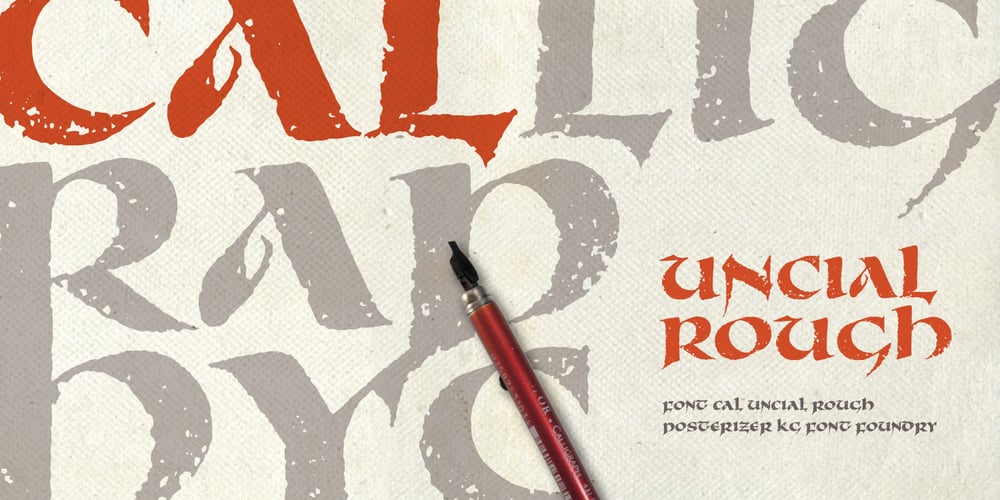
Cal Uncial Rough
Cal Uncial Rough font
Cal Uncial Rough Font Family was designed by Lazar Dimitrijević and published by Posterizer KG. Cal Uncial Rough contains 1 styles and family package options. Cal Uncial Rough is a calligraphic font based on sketches written with cane calligraphy pen and ink on coarse-textured paper. Because of the fact that the Uncial don’t have lowercase letters, there are small capitals instead of the lowercase. As the Latin version of the Uncial was created from the Greek Uncial script (translating the Bible from Greek into Latin), in addition to the standard Latin graphemes, the font contains the Greek alphabet (and also the Cyrillic letters (Ustav), derived from the Greek Uncial too). Regardless of the stylistic connection, there is a difference between the morphology of related Greek, Latin and Cyrillic letters. Most of the graphemes are based on traditional roman and insular uncial calligraphy. Cal Uncial Rough is suitable for the preparation of calligraphic sketches as well as an application in typography that should bring us closer to historical topics (European literature, quotes, history, film …).